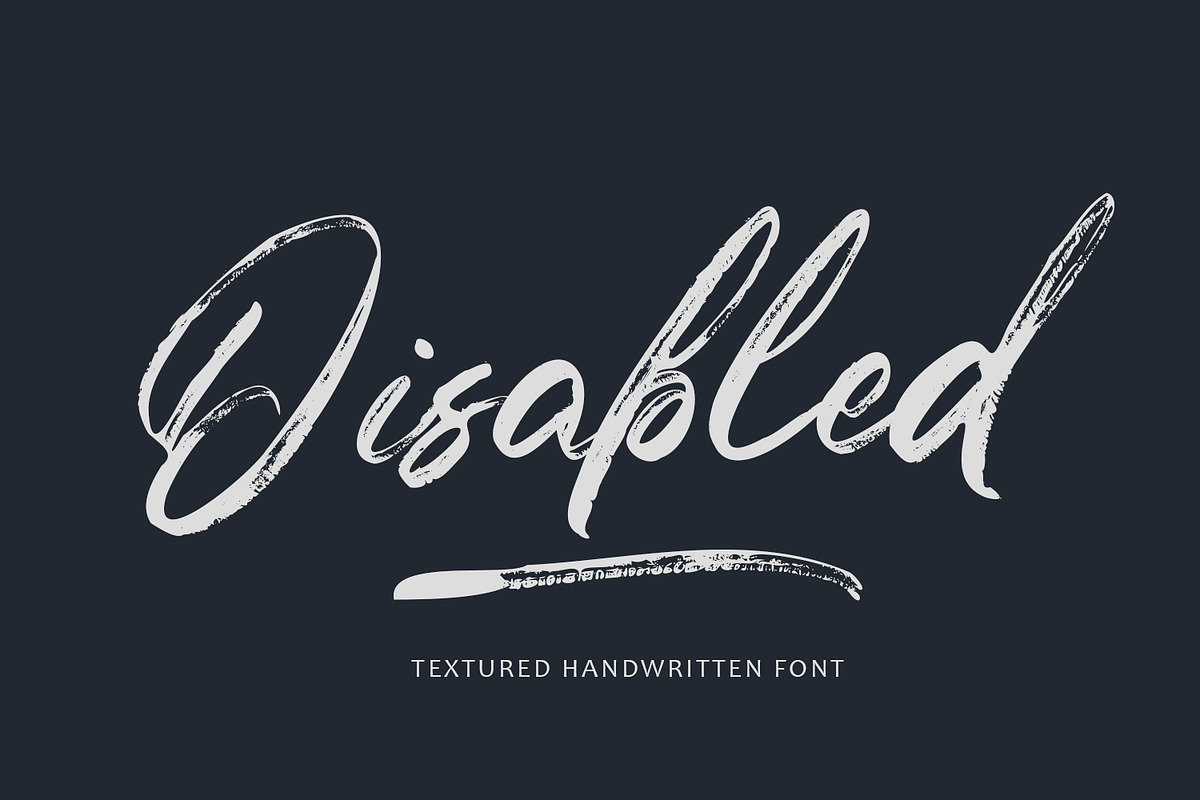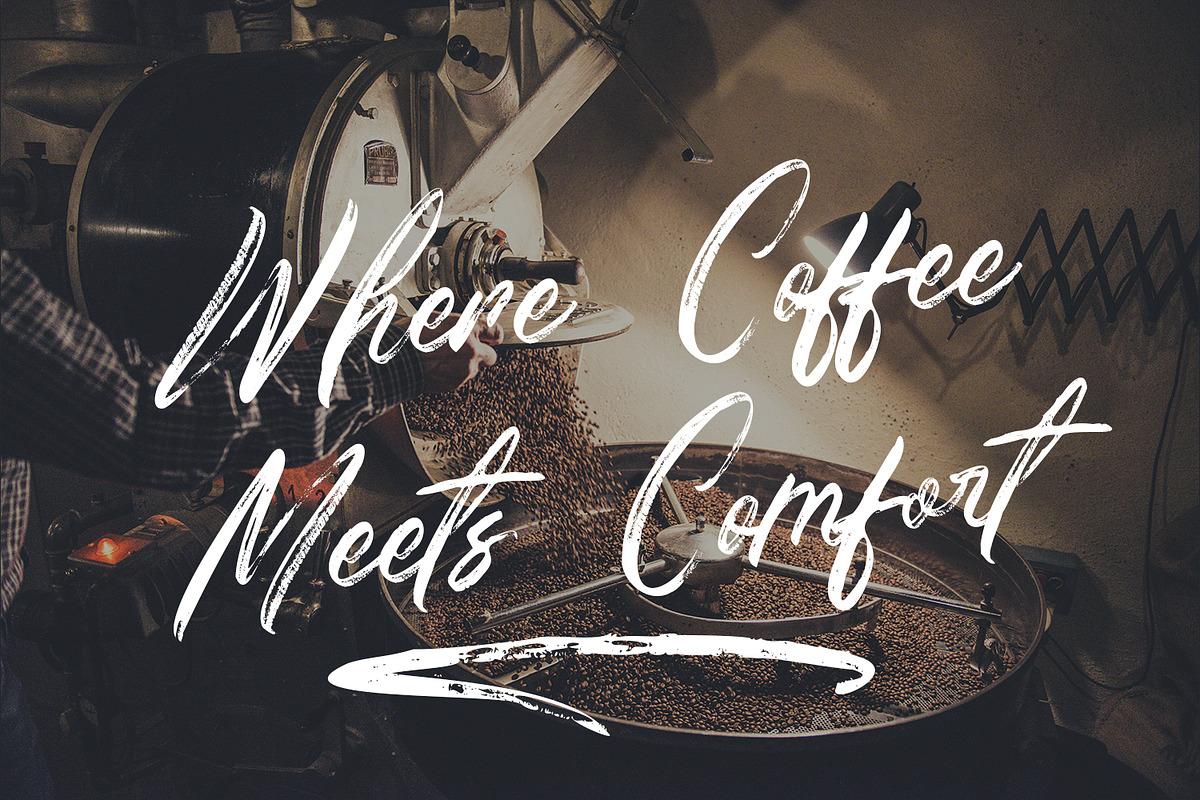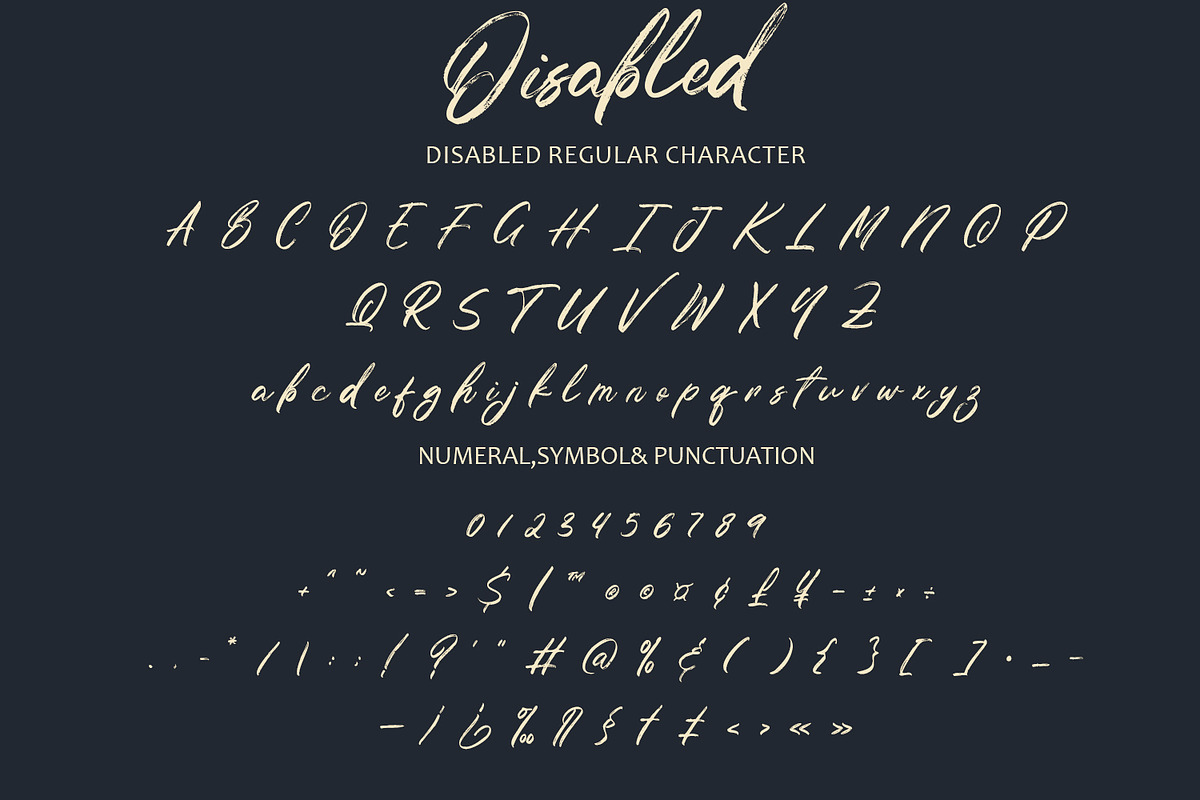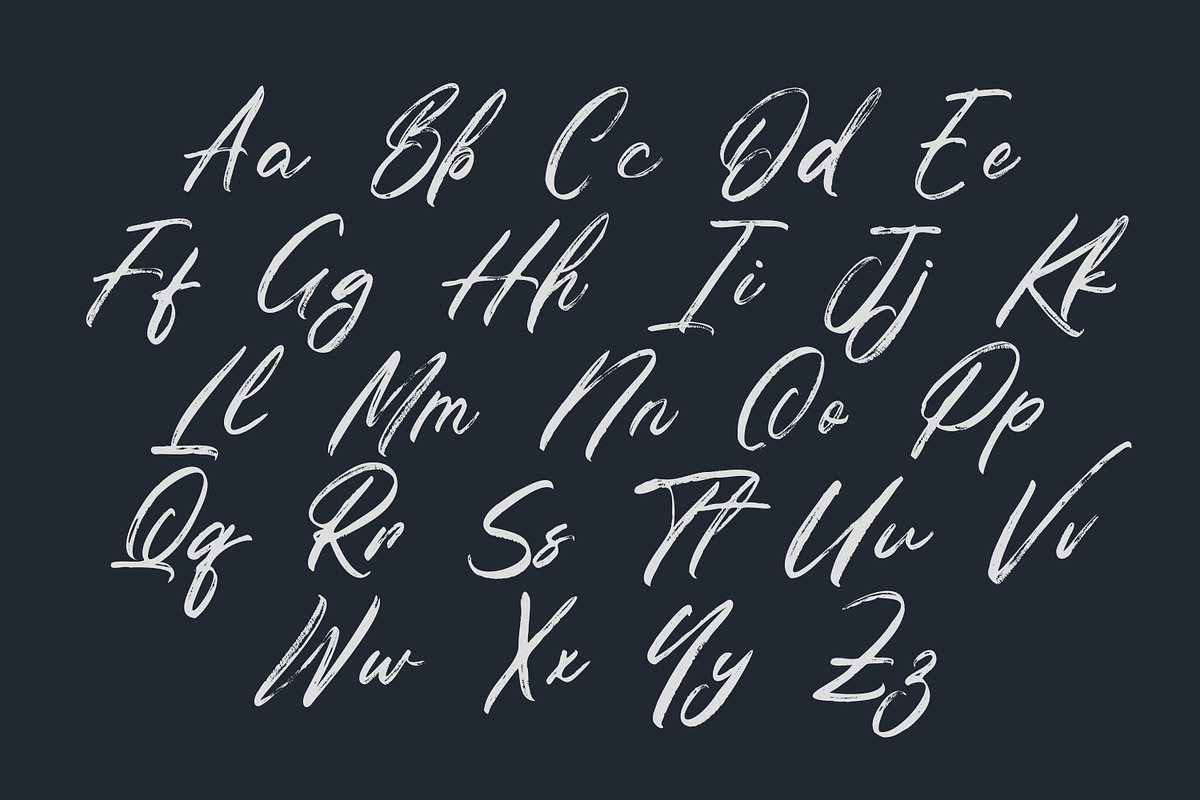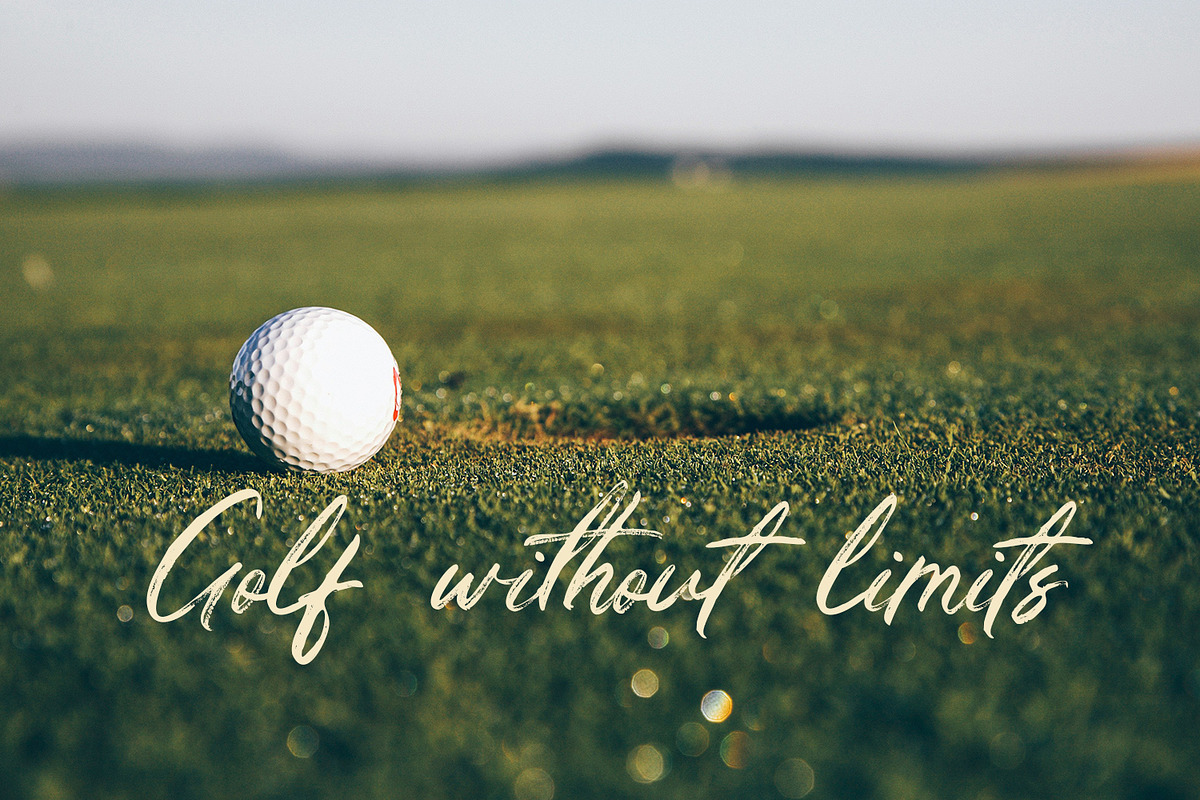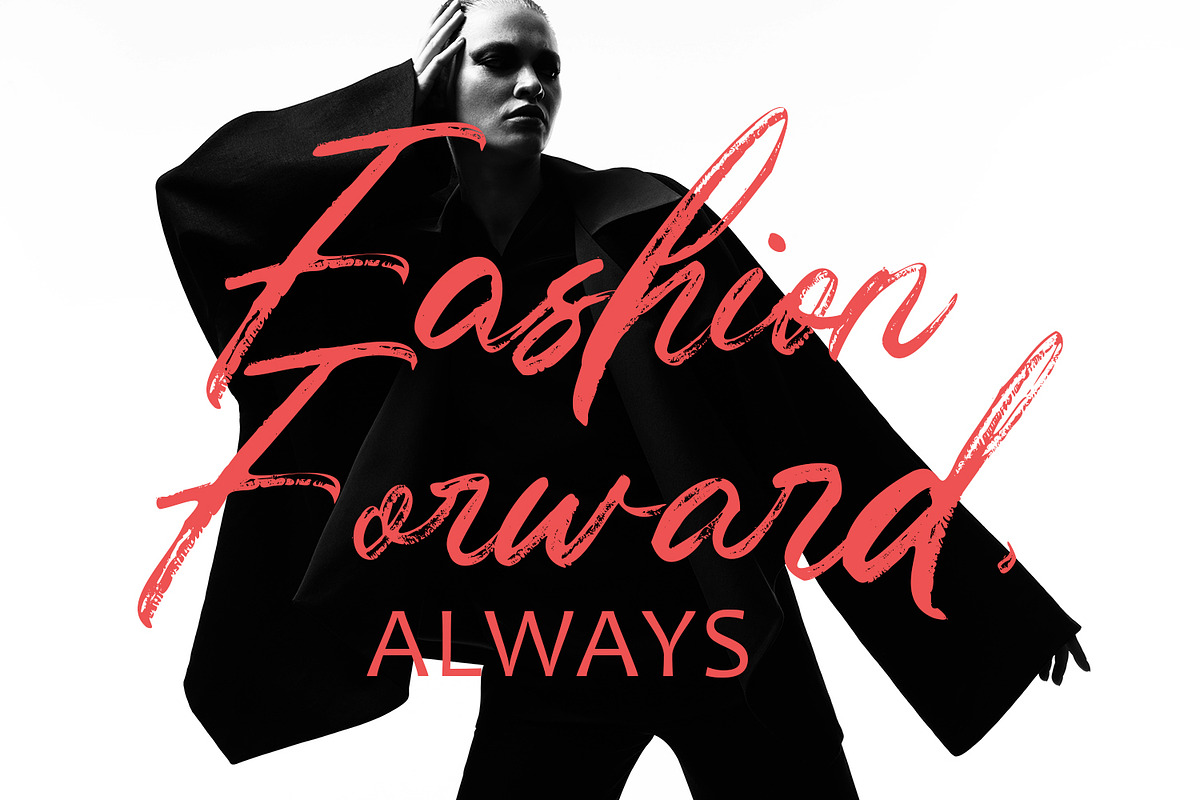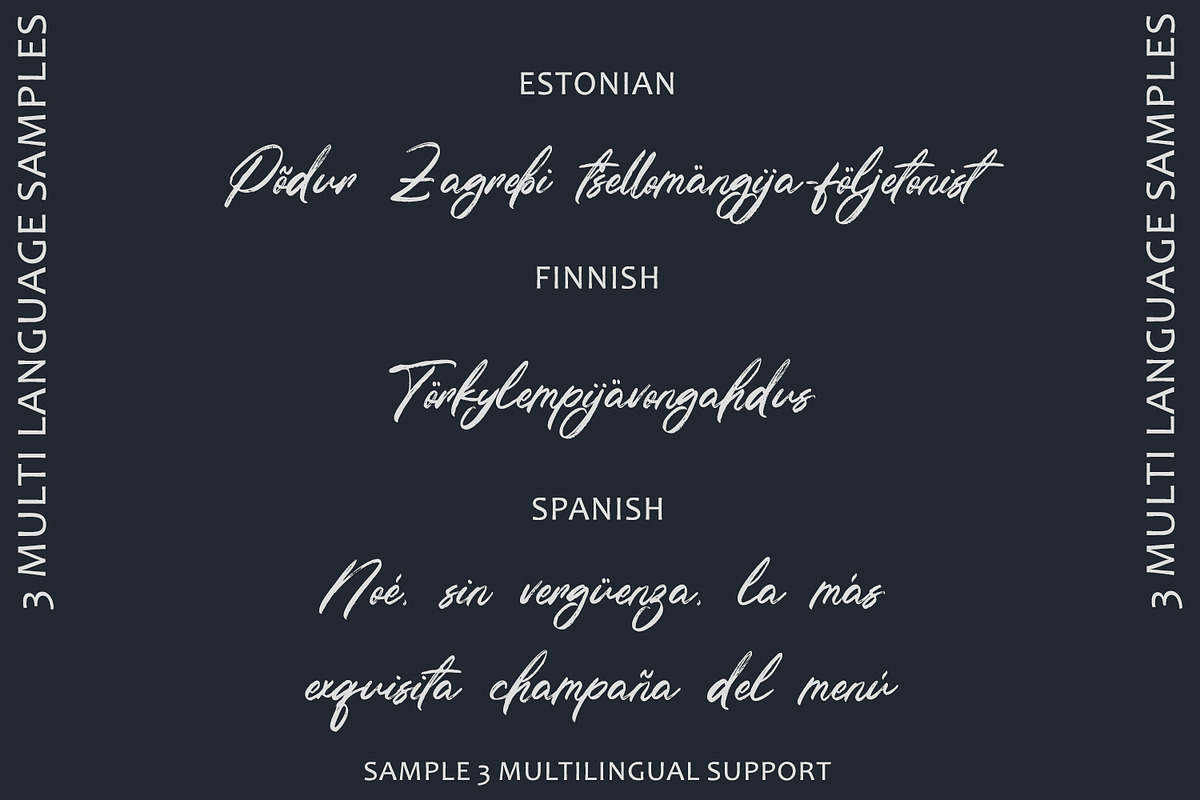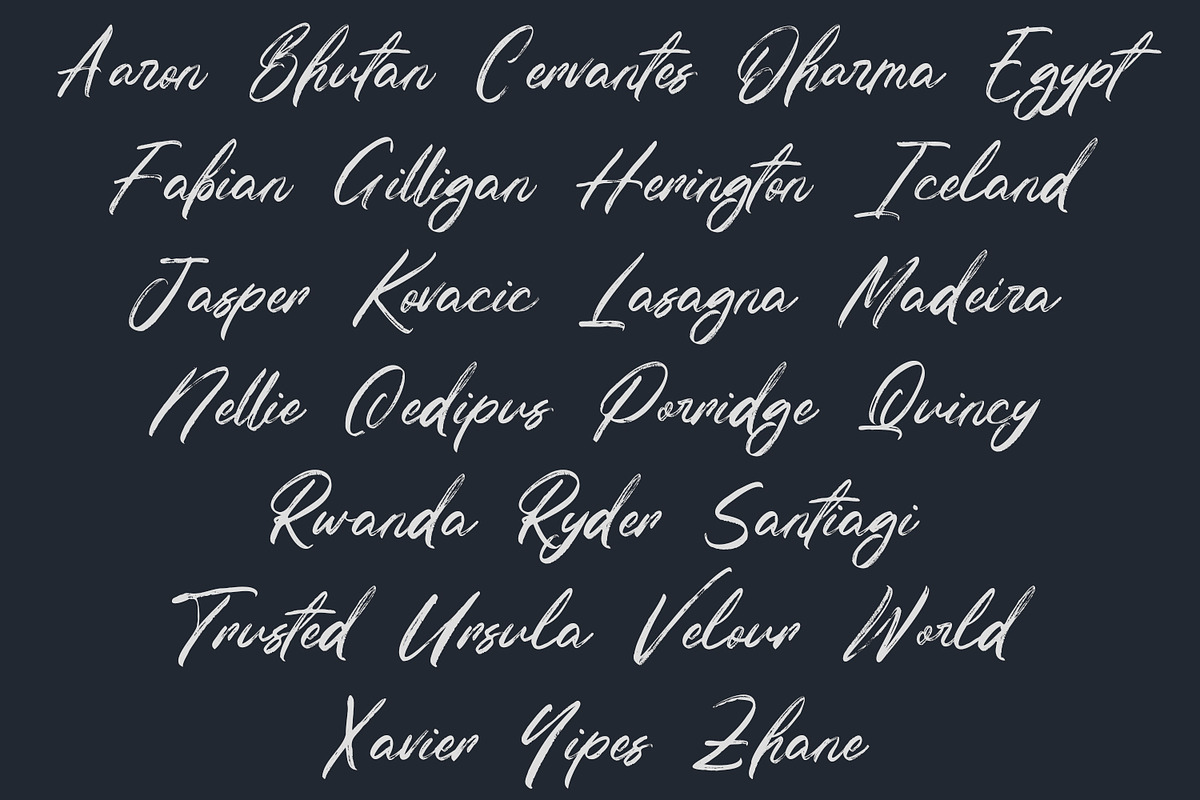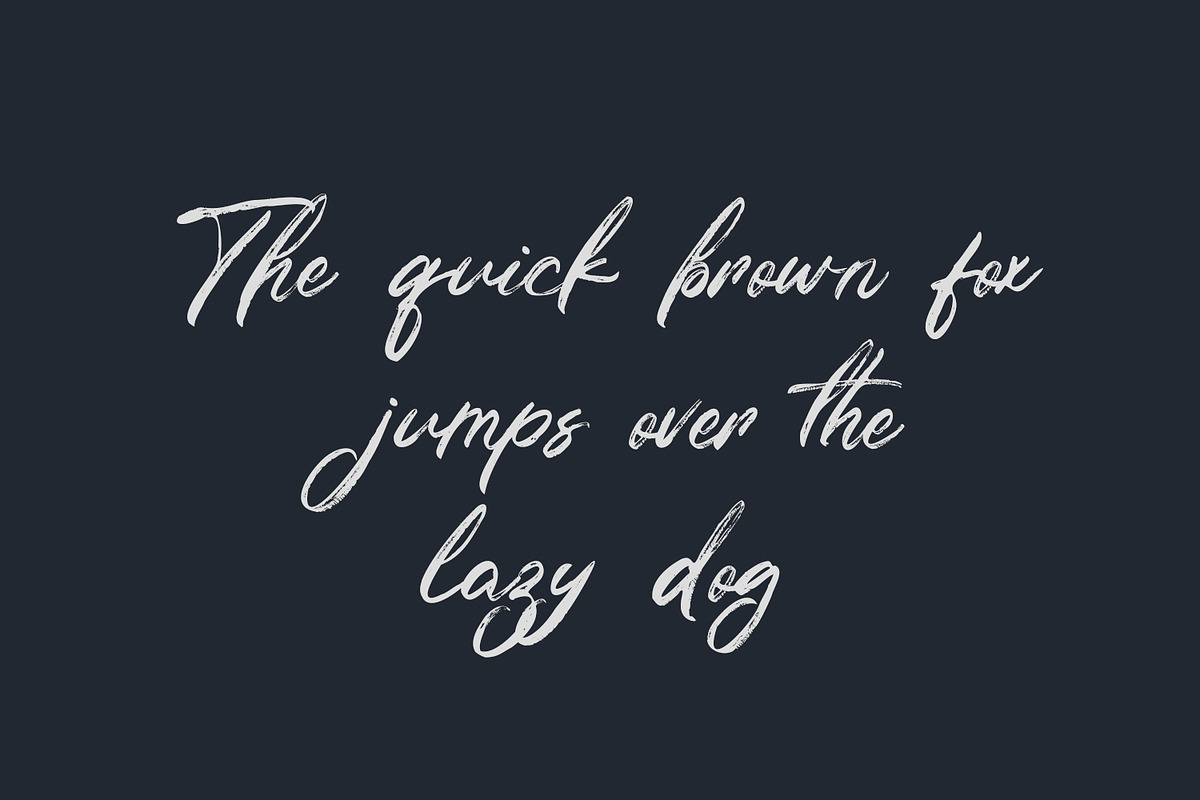
Disabled - Textured Handwritten Font
"Disabled" textured handwritten font combines the authenticity of handcrafted lettering with a unique texture, adding depth and character to any design. Here's an explanation of its key features:
Handwritten Authenticity: "Disabled" captures the essence of handwritten lettering, with each character bearing the distinct imperfections and irregularities characteristic of hand-drawn fonts. This authenticity adds a personal touch to the typography, creating a warm and inviting feel.
Texture: What sets "Disabled" apart is its textured appearance, which adds a tactile quality to the font. The texture mimics the look of ink bleed or rough brush strokes, giving the typography a rustic and artisanal charm.
Versatility: Despite its textured and handwritten style, "Disabled" is surprisingly versatile and can be used in a variety of design applications. Whether it's for branding materials, packaging, posters, or social media graphics, the font adds a unique and memorable element to any project.
Expressive Typography: The textured and handwritten nature of "Disabled" allows designers to create expressive typographic compositions that convey personality and emotion. The font's organic feel lends itself well to designs that aim to evoke a sense of authenticity and sincerity.
Customization Options: While "Disabled" comes with its own unique texture, some variations may offer customization options such as alternate characters or ligatures. These features allow designers to further personalize the typography and create custom looks that suit their specific needs.
Attention to Detail: Despite its rough and textured appearance, "Disabled" is crafted with attention to detail to ensure clarity and readability. Each character is carefully designed to maintain legibility while retaining its handwritten charm.
Overall, the "Disabled" textured handwritten font offers a perfect blend of authenticity, texture, and versatility. Its handcrafted feel and unique texture make it a standout choice for designers looking to add a touch of rustic charm and personality to their projects.